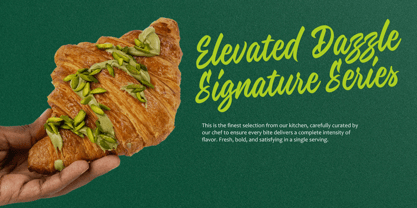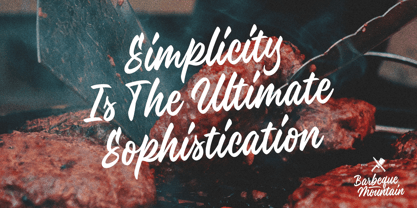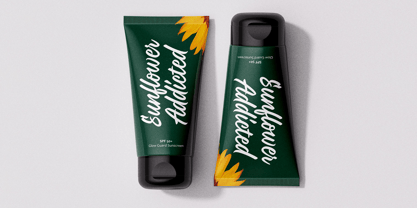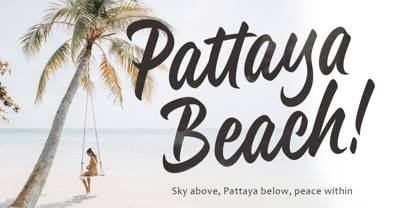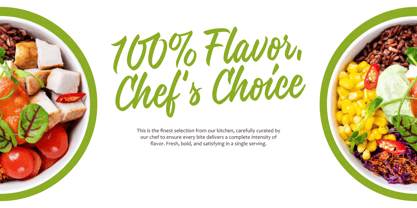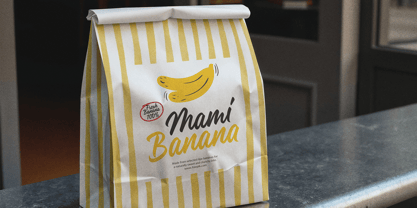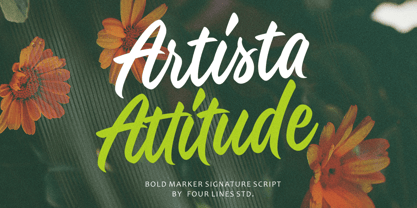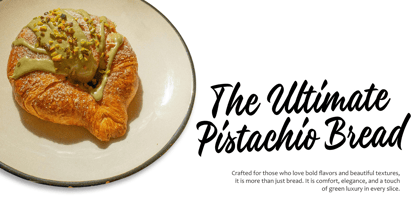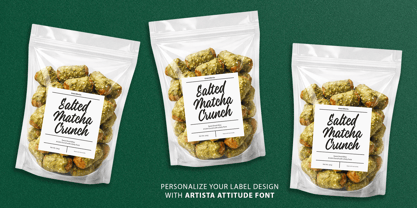
Artista Attitude
by Four Lines Std
The Artista Attitude Font Family was designed by Zain Fahroni and published by Four Lines Std. Artista Attitude contains 1 styles. More about this family
Artista Attitude is a bold marker signature script designed to deliver confident, expressive lettering with a natural handwritten flow. Built with strong strokes and dynamic curves, this typeface captures the energy of modern branding while maintaining a refined and professional appearance. With its smooth connections and balanced rhythm, Artista Attitude works beautifully for logos, packaging, social media graphics, product labels, editorial headlines, and contemporary lifestyle branding. The thick marker-style strokes create a striking presence, making it ideal for designs that demand personality and visual impact.